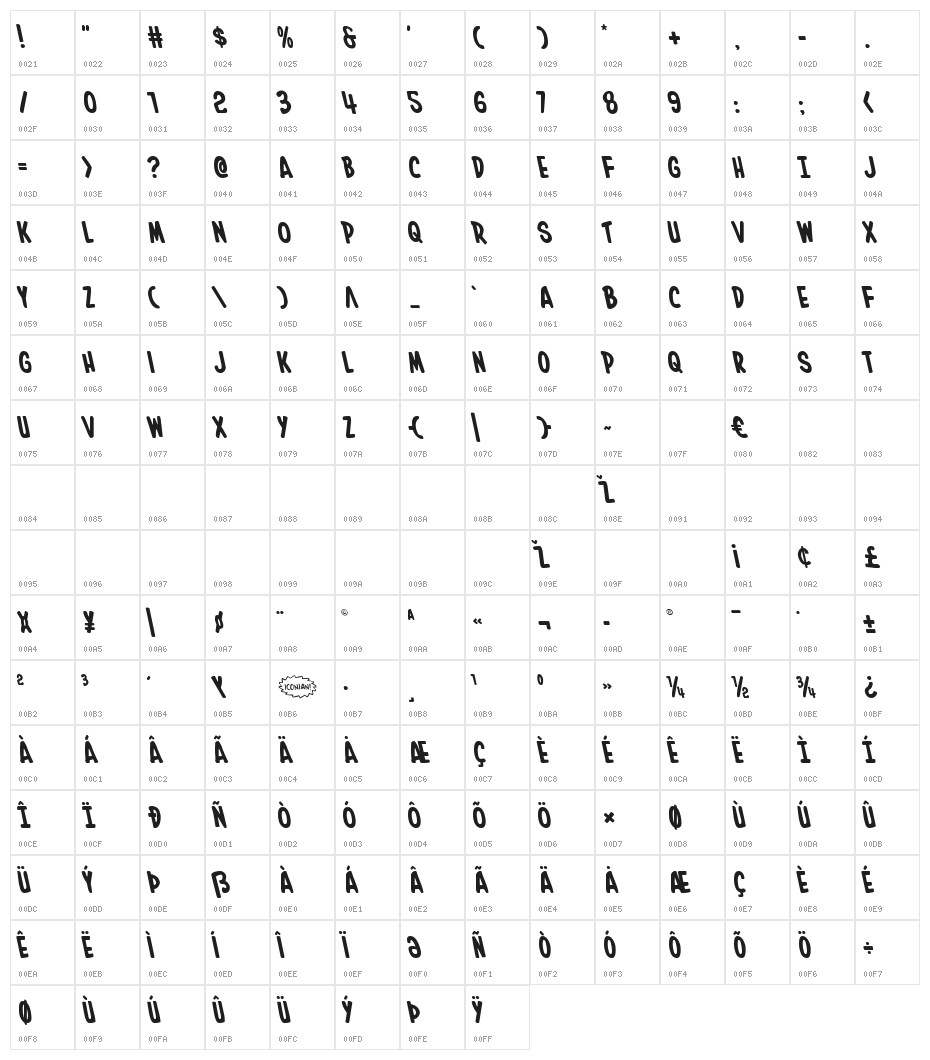
In-House Edition Leftalic Font
In-House Edition Leftalic Description
This playful and bold font features a unique left-leaning italic style that gives it a dynamic and energetic appearance. The characters are thick and rounded, providing a friendly and approachable feel. The uppercase and lowercase letters maintain a consistent style, with slightly exaggerated curves and a whimsical touch. The numbers and special characters follow the same design principles, ensuring uniformity across all glyphs. This font's distinctive style makes it stand out, perfect for projects that require a fun and informal tone.
| Proposed Projects | Ideal for children's books, playful branding, posters, and creative social media graphics. |